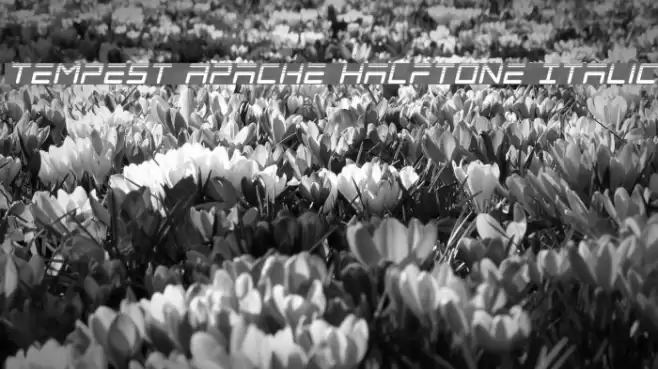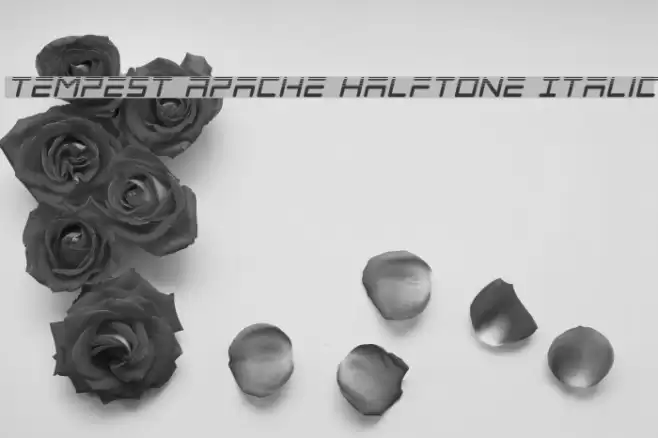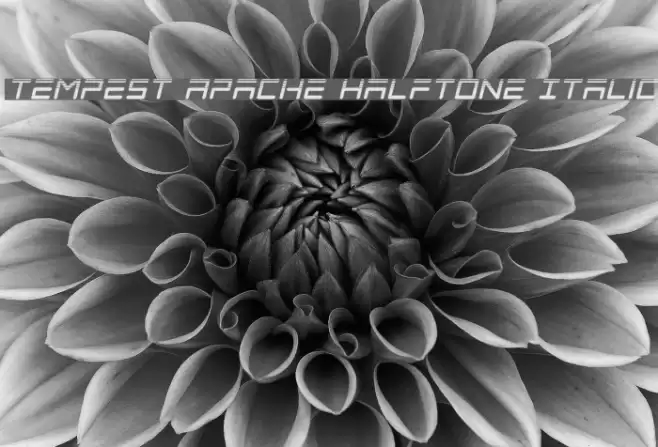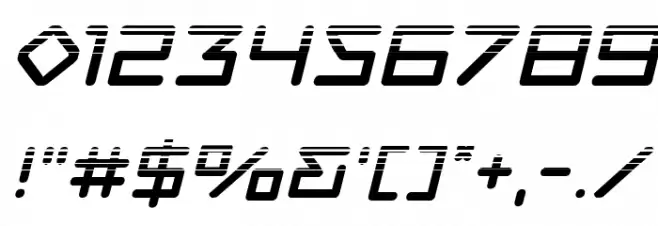
Tempest Apache Halftone Italic Font
Tempest Apache Halftone Italic Description
This font features a dynamic and futuristic design with a halftone effect that gives it a unique, tech-inspired appearance. The characters are italicized, adding a sense of motion and speed. The angular and geometric shapes of the letters are complemented by the halftone pattern, which creates a sense of depth and texture. This font is particularly eye-catching and would stand out in any design project. The uppercase and lowercase letters maintain a consistent style, while the numerals and special characters are crafted to match the overall aesthetic. The font's bold and modern look makes it suitable for a variety of creative applications.
A futuristic, italicized font with a halftone effect and geometric design from Uncategorized fonts.
- Proposed Projects: Ideal for tech-themed posters, video game graphics, futuristic branding, and sci-fi book covers.